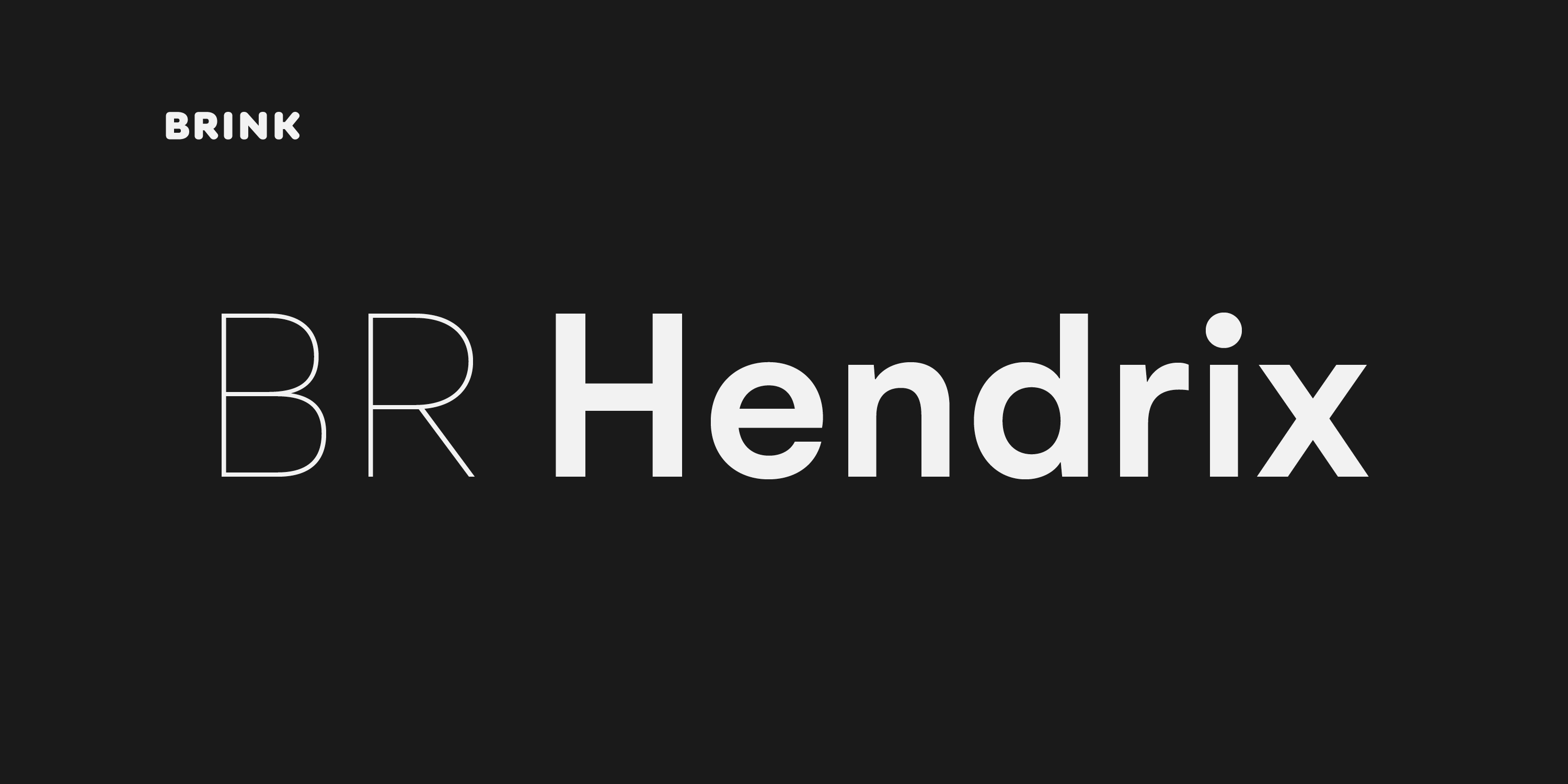
BR Hendrix Font is perfect for music festival posters, rock band logos, vintage album covers, retro concert flyers, psychedelic art projects, music studio branding, entertainment venue signage, cultural event promotions, artistic merchandise design, and creative agency portfolios. This expressive typeface brings authentic rock and roll spirit to any design project celebrating musical creativity and counterculture aesthetics.
BR Hendrix Font is exciting because it captures the rebellious energy and artistic innovation of legendary rock music era typography. Its bold, electrifying letterforms and dynamic character evoke the power of live performance and creative expression, making it perfect for brands that want to communicate authenticity, artistic passion, and revolutionary spirit to music-loving audiences.
BR Hendrix Font family includes multiple weights and styles: Regular, Bold, Light, Medium, Black, Condensed, Extended, Distressed, Psychedelic, and Vintage variants. Each style preserves the distinctive rock-inspired character while offering designers flexibility for creating powerful visual narratives that celebrate musical heritage and artistic rebellion across different media formats.
Whether you're designing for music industry clients, entertainment venues, or creative projects, BR Hendrix Font Free Download delivers the authentic rock aesthetic that resonates with music enthusiasts and creative professionals. This dynamic typeface combines musical heritage with contemporary design functionality, making it invaluable for projects requiring both artistic expression and strong visual impact. The font's electrifying presence ensures memorable results in entertainment contexts.